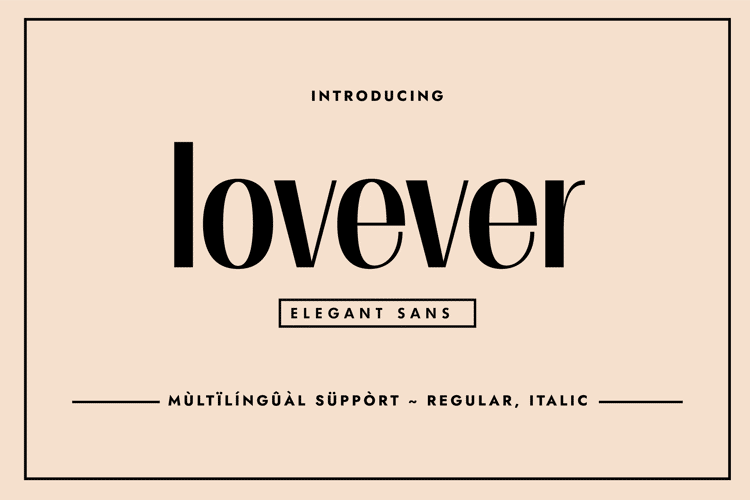
Lovever Font
๐จ Font Name: Lovever by Minimalist Art Studio
๐จ Font Description: Lovever is an elegant sans serif with multilingual supportโideal for romantic branding, minimalist packaging, and editorial design.
โ Complete Latin set + multilingual diacritics
โ Alternates, stylistic sets & ligatures
โ Numbers, small caps, and extended punctuation
โ Bonus italics and family styles